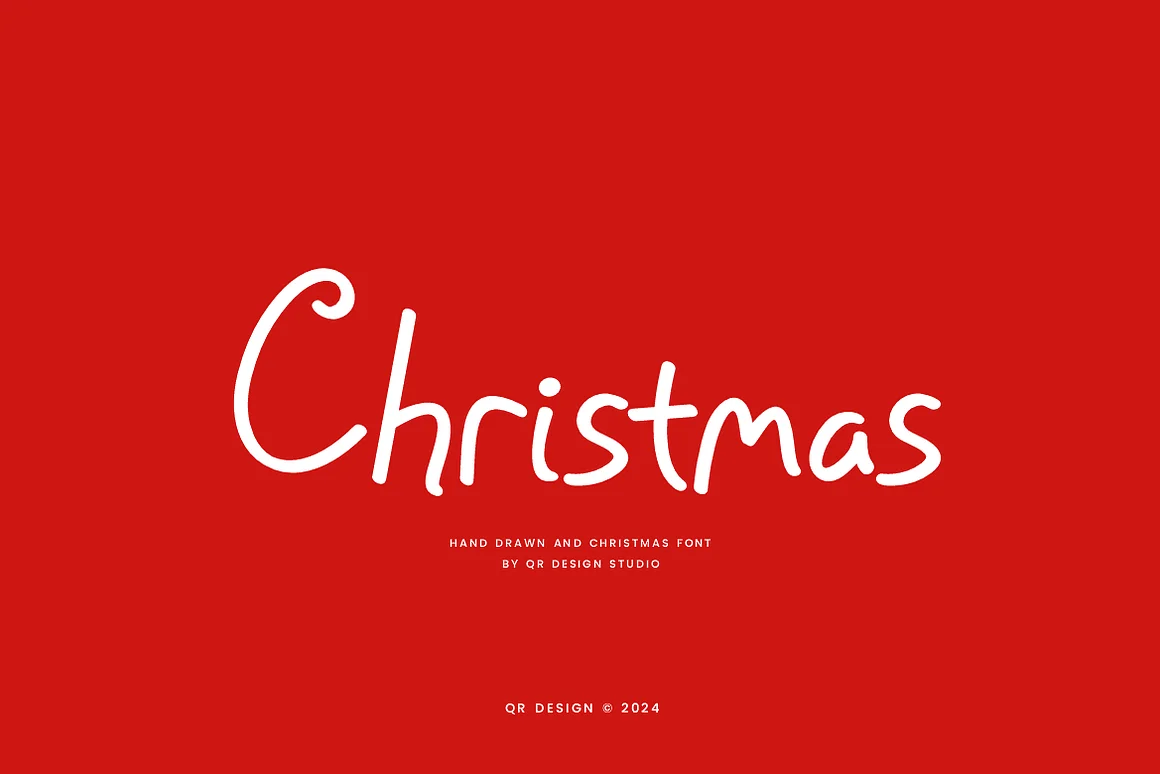
Yellocky Christmas - Hand Drawn Font
This playful hand drawn font is perfect for children's Christmas books, handmade holiday crafts, artistic Christmas cards, creative seasonal projects, whimsical holiday decorations, family Christmas newsletters, DIY holiday designs, artisan Christmas packaging, quirky seasonal branding, and authentic handcrafted Christmas materials.
Yellocky Christmas - Hand Drawn Font is exciting because it captures the joyful spontaneity and authentic charm of hand-sketched artwork, bringing genuine artistic personality to Christmas communications through its delightfully imperfect and wonderfully human letterforms. The font features organic, hand-drawn characters with natural variations and artistic irregularities that reflect the warmth of genuine craftsmanship, incorporating playful strokes and whimsical details that make each letter feel lovingly created by hand. The design embodies the creative spirit of homemade Christmas decorations and handcrafted holiday gifts, evoking memories of childhood art projects and family craft sessions. This authentic hand-drawn aesthetic adds soul and personality to digital designs, making them feel personal and heartfelt rather than sterile and commercial.
The Yellocky Christmas - Hand Drawn Font family includes artistic style variations: Regular, Bold, Light, Sketchy, and Doodle versions. The collection features special hand-drawn elements including sketch-style flourishes, artistic swashes, doodle accents, and handcrafted ornaments. Additional components include sketched borders, artistic frames, hand-drawn decorations, and creative ornamental designs that enhance the font's authentic Christmas craft appeal and create cohesive handmade holiday themes.
Artists and craft enthusiasts will find Yellocky Christmas - Hand Drawn Font to be an invaluable tool for creating authentic, handcrafted Christmas communications that celebrate the beauty of imperfection and human creativity. This lovingly crafted font transforms ordinary Christmas text into artistic expressions that resonate with audiences who appreciate handmade authenticity and creative individuality over mass-produced perfection.
The typeface includes comprehensive character support with hand-drawn styling that maintains excellent readability while conveying the warmth and authenticity of genuine artistic creation. The font's organic design ensures charming results across both digital applications and printed craft projects.
Perfect for artisan Christmas brands, craft businesses, children's holiday projects, and authentic seasonal communications, this font delivers genuine artistic impact that communicates creativity, warmth, and the irreplaceable value of handmade Christmas expressions through typography that celebrates human artistry.